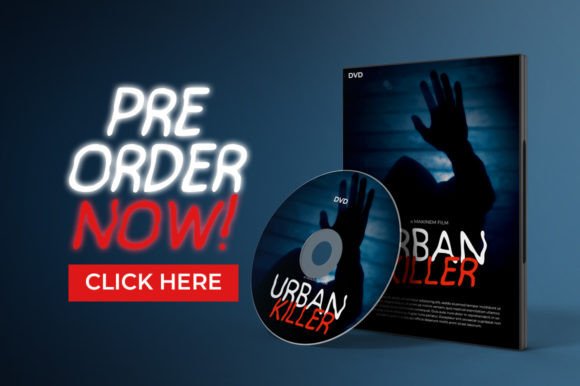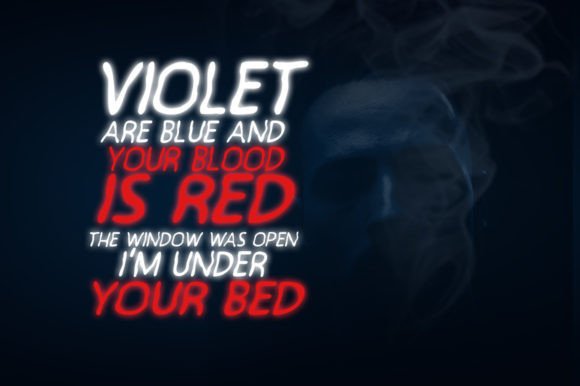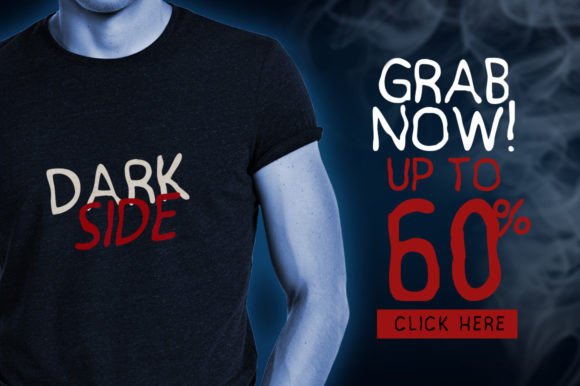
Introduction to Exornight Font
The Exornight is a unique and attractive display font.
Oddly enough, this font looks really good in a variety of contexts This font is suitable for designs with horror and Halloween concepts.